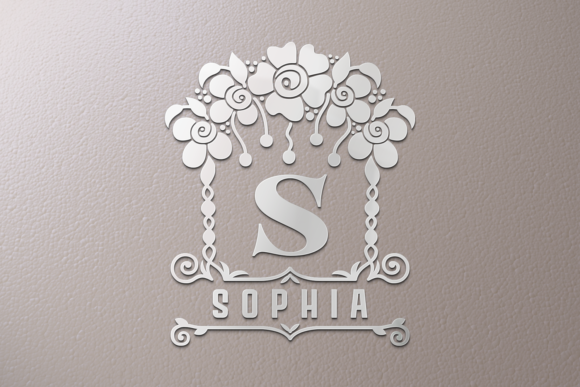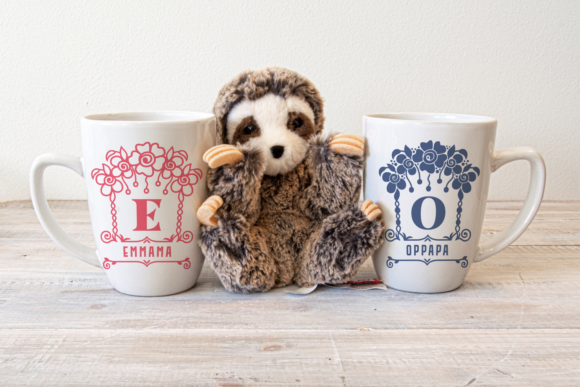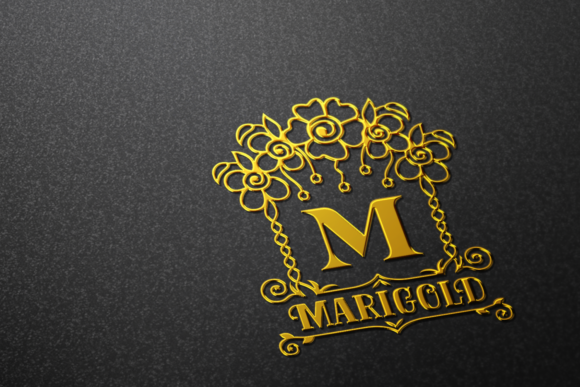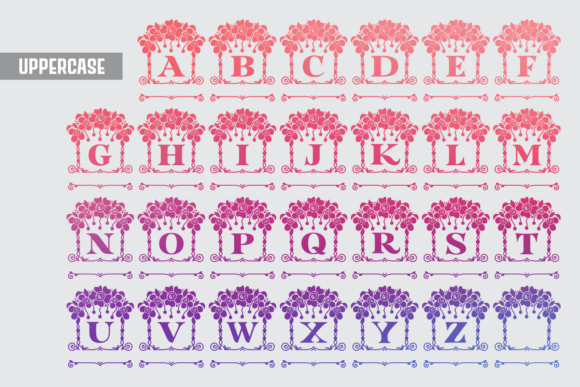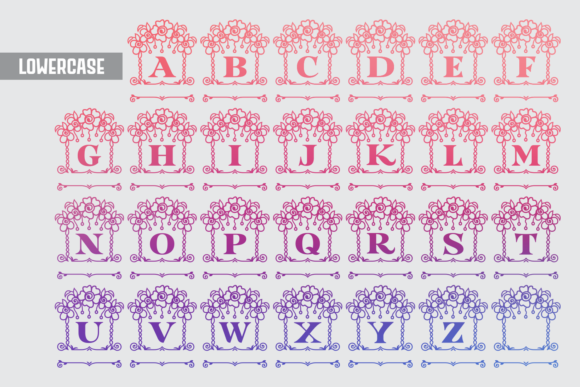
Introduction to Rihane Font
As designers, we’ve all had those moments where we’re stuck on a project, unsure of how to bring our vision to life. Maybe it’s a social media campaign, a logo for a new business, or even a birthday card for a loved one. But then, you stumble upon the perfect design resource, and everything falls into place. For many of us, that perfect resource is a high-quality font, and today, we’re excited to introduce you to one that’s sure to become a favorite: the Rihane Font.
With its sweet and friendly aesthetic, the Rihane Font is the perfect addition to any creative project. Whether you’re working on a design with a transparent background or a colorful graphic, this versatile font is sure to bring a unique touch to your work. And the best part? It’s available for free download, making it an invaluable resource for designers of all levels.
So, what makes the Rihane Font so valuable to designers? Its natural and unique style makes it incredibly fitting for a wide range of designs, from elegant wedding invitations to playful children’s books. With its high quality and endless possibilities, the Rihane Font is sure to become a go-to design resource for any creative project.
Key Features of Rihane Font
- High-quality, professional font perfect for creative projects, available for free download.
- Unique and stylish design with a transparent background, ideal for designers looking for a design resource.
- Comes in a single weight, ideal for projects where a clean and simple font is required.
- Supports a wide range of languages, making it a versatile design resource for international projects.
- Perfect for use in digital design, including web design, graphic design, and UI/UX design, due to its high quality and modern style.
Honest Review: Rihane Font
I recently came across the Rihane Font, and I was excited to try it out for my next creative project. As a designer, I’m always on the lookout for high-quality design resources to elevate my work.
One thing that stands out about the Rihane Font is its unique and elegant design. The font has a beautiful, hand-drawn feel that’s perfect for adding a touch of sophistication to any project. ✨ The transparent background feature is also a huge plus, making it easy to overlay text on images and videos.
Here are some key features that I found particularly useful:
- High-quality design: The Rihane Font is crisp and clear, making it perfect for large-scale projects.
- Transparency: The transparent background feature is incredibly useful for creative projects.
While the Rihane Font is a great resource, I did encounter some limitations:
- ⚠️ Limited font styles: The font only comes in a few styles, which may limit its versatility.
- ⚠️ Not suitable for small text: Due to its elegant design, the font may not be the best choice for small text.
Overall, I’m impressed with the Rihane Font. Its unique design and high-quality features make it an excellent addition to any designer’s toolkit. With a few minor limitations, I would definitely recommend the Rihane Font for any creative project that requires a touch of elegance and sophistication.
The Rihane Font can be used for a variety of creative projects, including logos, posters, and social media graphics. Its high-quality design and transparent background make it an ideal choice for any design project.